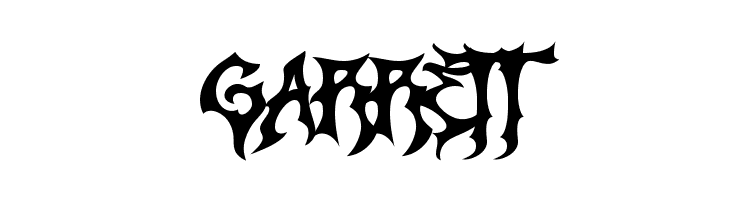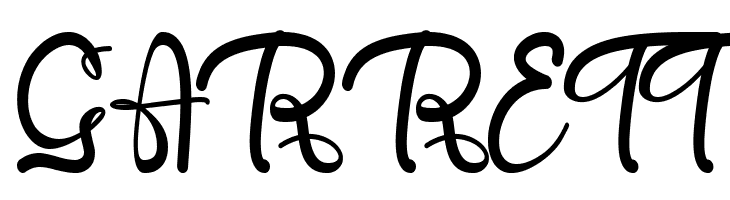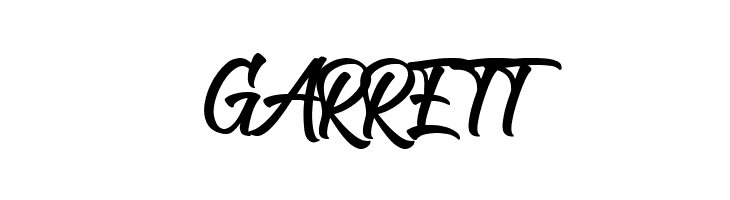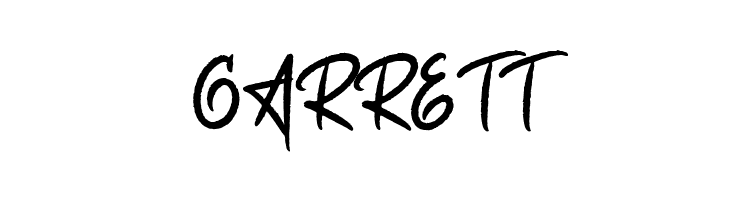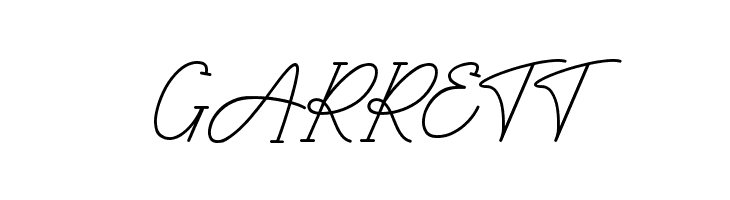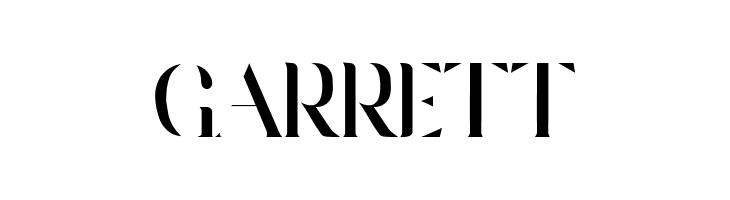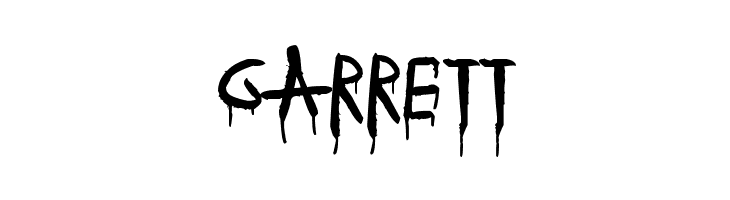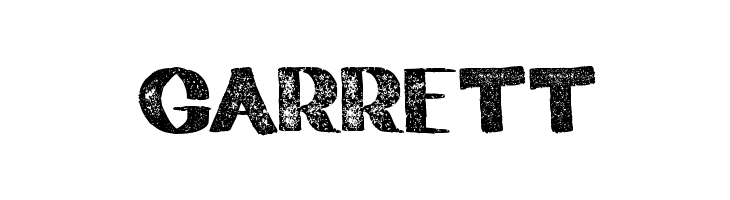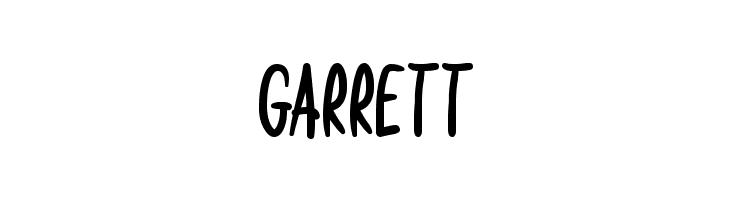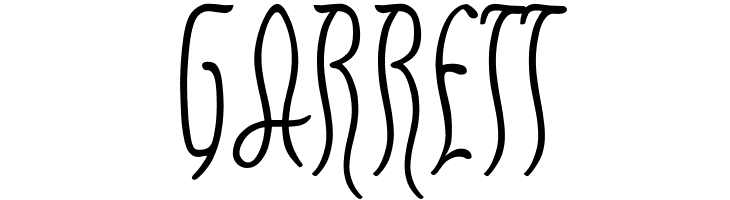
Playful handwritten font with a casual style.
A bold, barcode-inspired font with high contrast and tight spacing.
A bold, playful font with a hand-drawn, negative space style.
A whimsical collection of bold, hand-drawn illustrations with playful and surreal elements.
A bold, geometric font with characters enclosed in squares, offering a modern and artistic style.
A modern, high-contrast font with sharp angles and smooth curves.
A playful, hand-drawn font with a quirky and informal style.
Animal silhouette pictorial display font.
A bold, textured font with a shattered glass effect.
A bold, decorative font with a dotted pattern, perfect for creative and eye-catching designs.
A traditional Blackletter font with ornate, medieval-inspired design.
An artistic and whimsical font with elongated, flowing letterforms.
An ornate and decorative font with intricate flourishes and whimsical character shapes.
A bold, modern font with strong, uniform character design.
A flowing, cursive script font with elegant loops and swashes.
An elegant cursive script font with interconnected letters and a natural handwriting style.
A playful, rounded handwritten font with a friendly and informal style.
A playful, textured display font with unique patterns in each letter.
A playful, rounded font with smooth curves and a friendly appearance.
A playful, hand-drawn font with bold, rounded outlines.
A bold, fuzzy, and dynamic font with a playful, hand-drawn style.
A bold, slanted font with outlined characters and a dynamic style.
A lively and energetic handwritten font with playful curves.
A bold, dynamic script font with flowing, cursive letterforms.
A bold, distressed font with a rugged, grunge-like texture.
A bold, dripping font with a grunge and horror-inspired aesthetic.
A charming, italic typewriter-style font with a handwritten feel.
A bold, textured typewriter-style font with a vintage, distressed look.
A bold, gothic-style font with sharp, angular edges and a dramatic aesthetic.